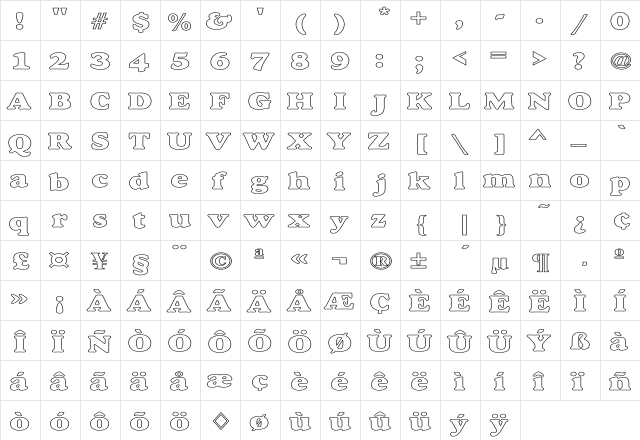
Alfredo Heavy Hollow Wide Regular
Design Context for Alfredo Heavy Hollow Wide Typeface
Alfredo Heavy Hollow Wide is a composed and adaptable typeface that performs quietly and consistently across a wide range of design contexts.